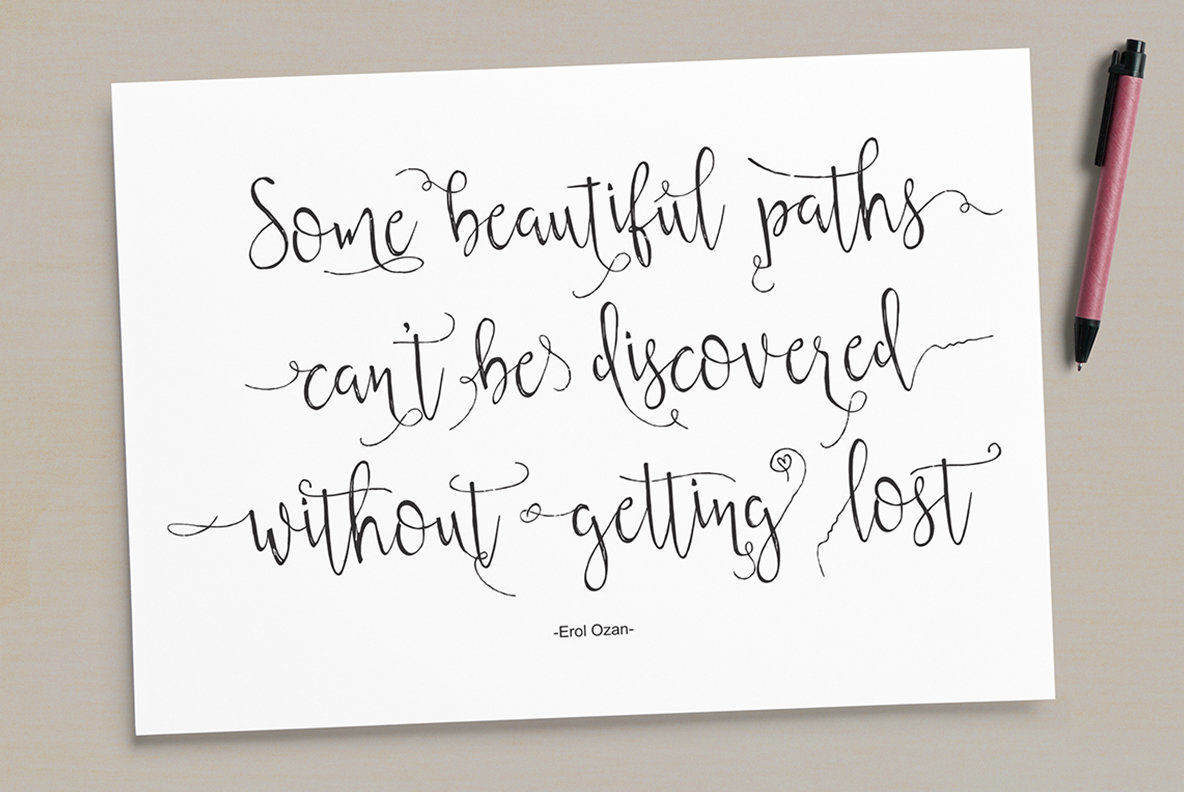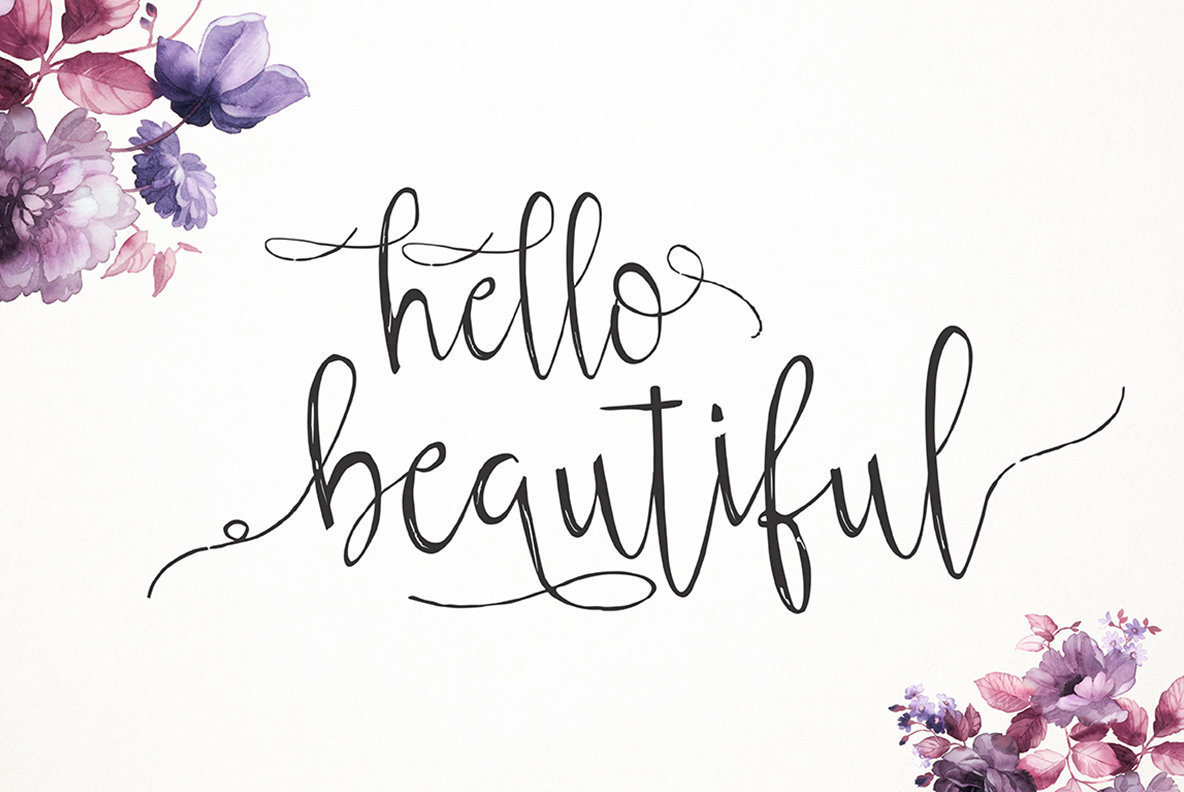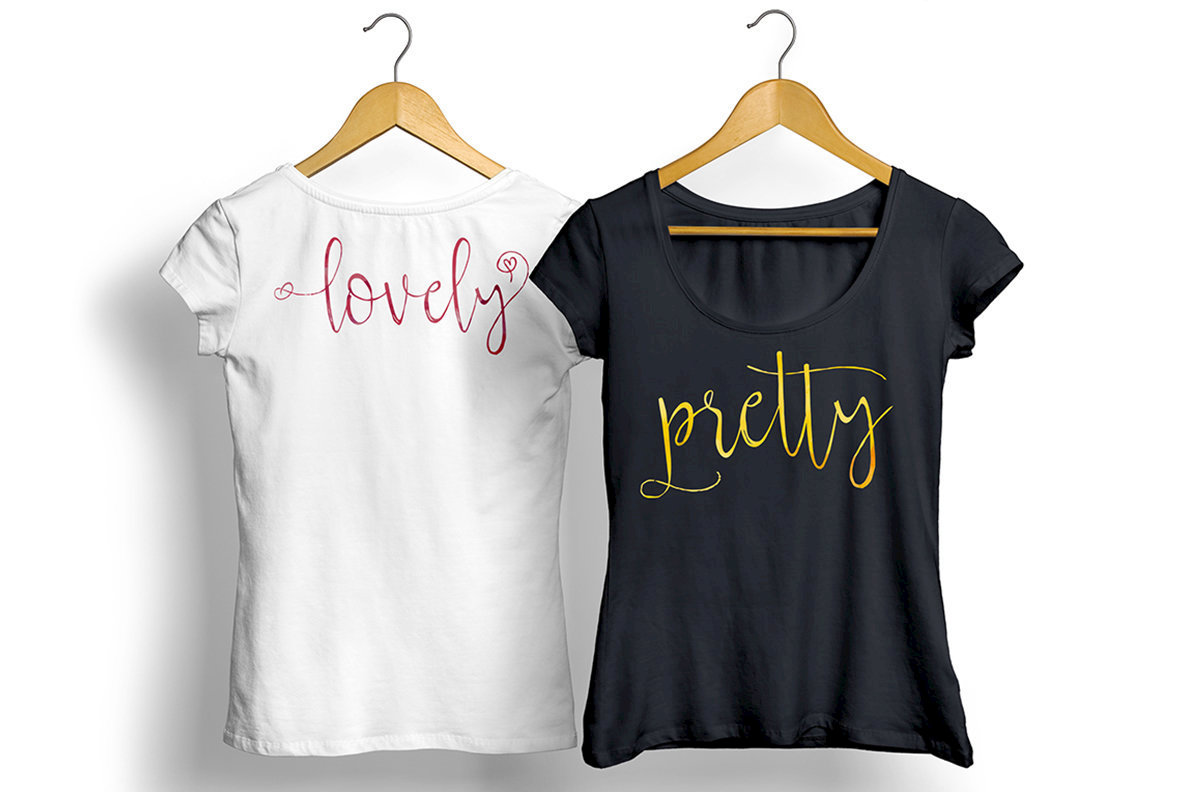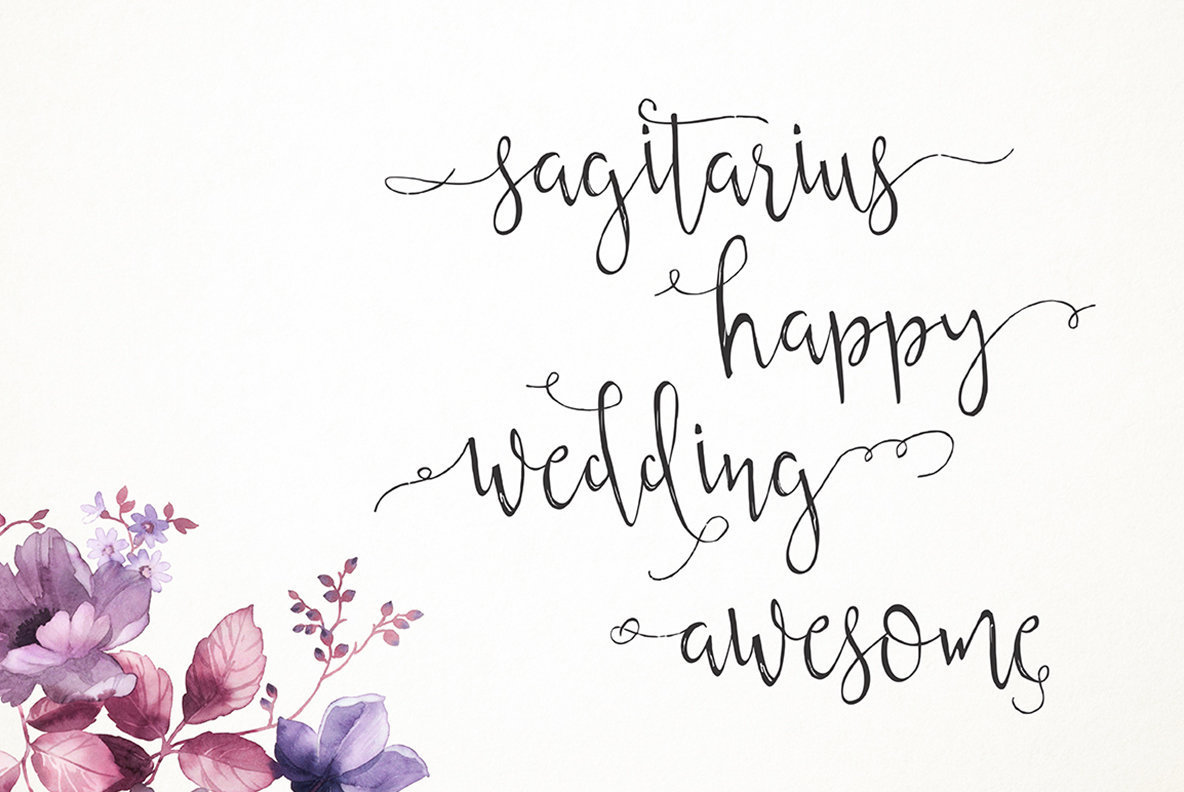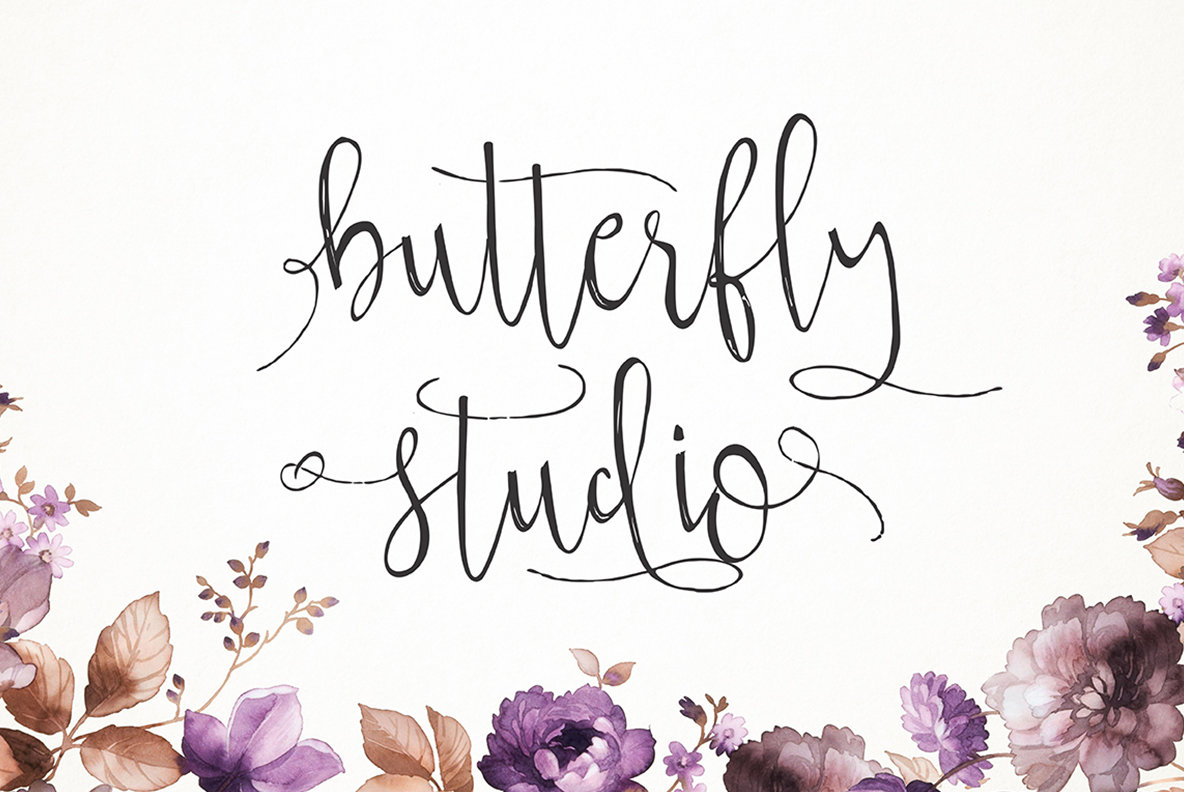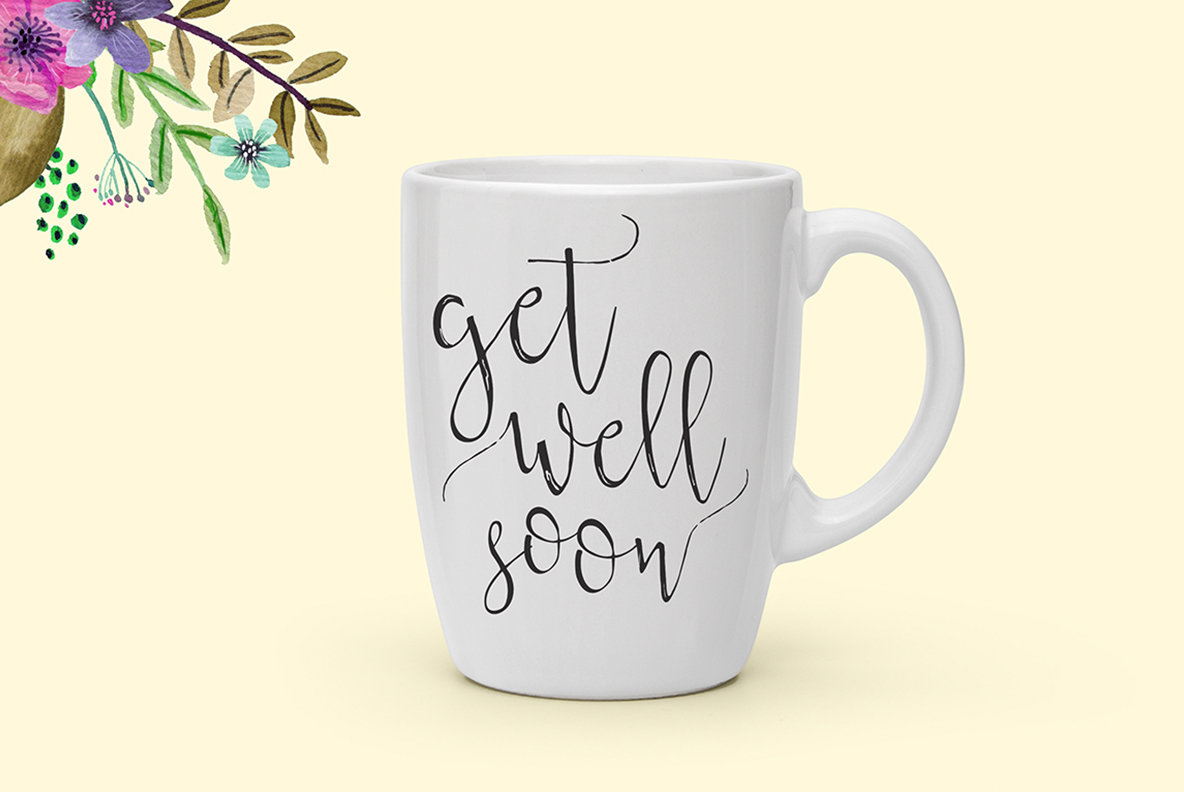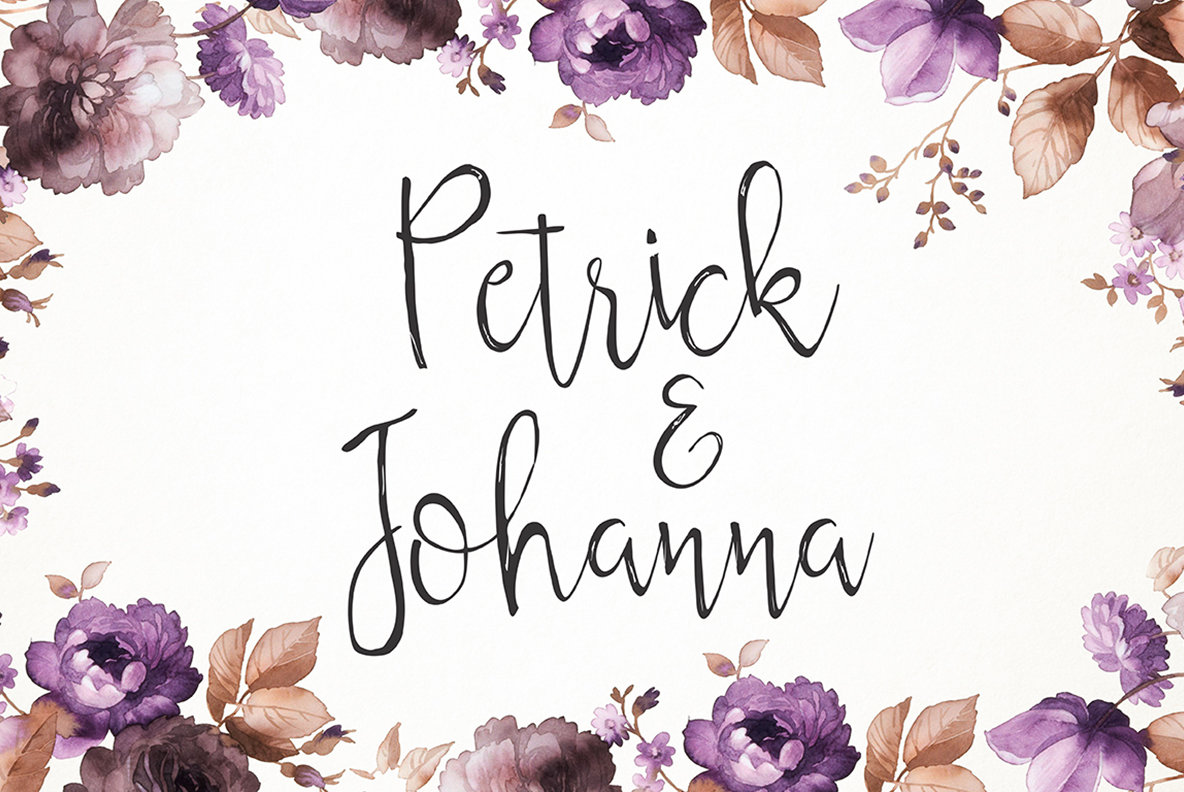
Aintzane Font
Aintzane Script
Aintzane Script is modern hand brushed script, organic, fun with dancing baseline. Different alternates and swashes to the beginning and ends of all lowercase.
Features 570+ glyphs and 380+ alternate characters. Opentype features with ligatures, stylistic sets and International support for most Western Languages is included.